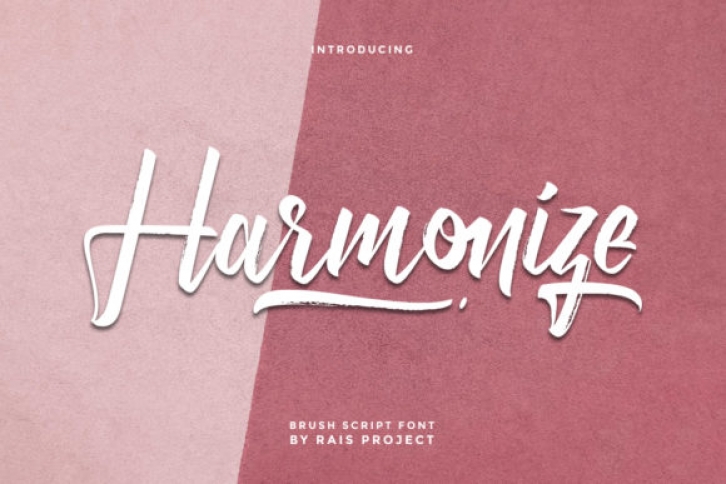
Harmonize is a lovely brushed handwritten font. It looks ravishing on wedding invitations, thank you cards, quotes, greeting cards, logos, business cards and every other design which needs a customized touch.